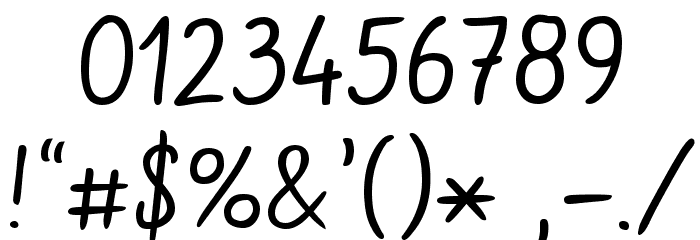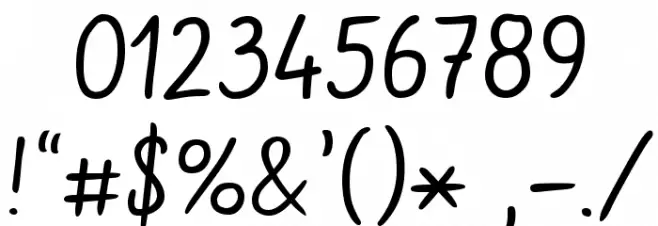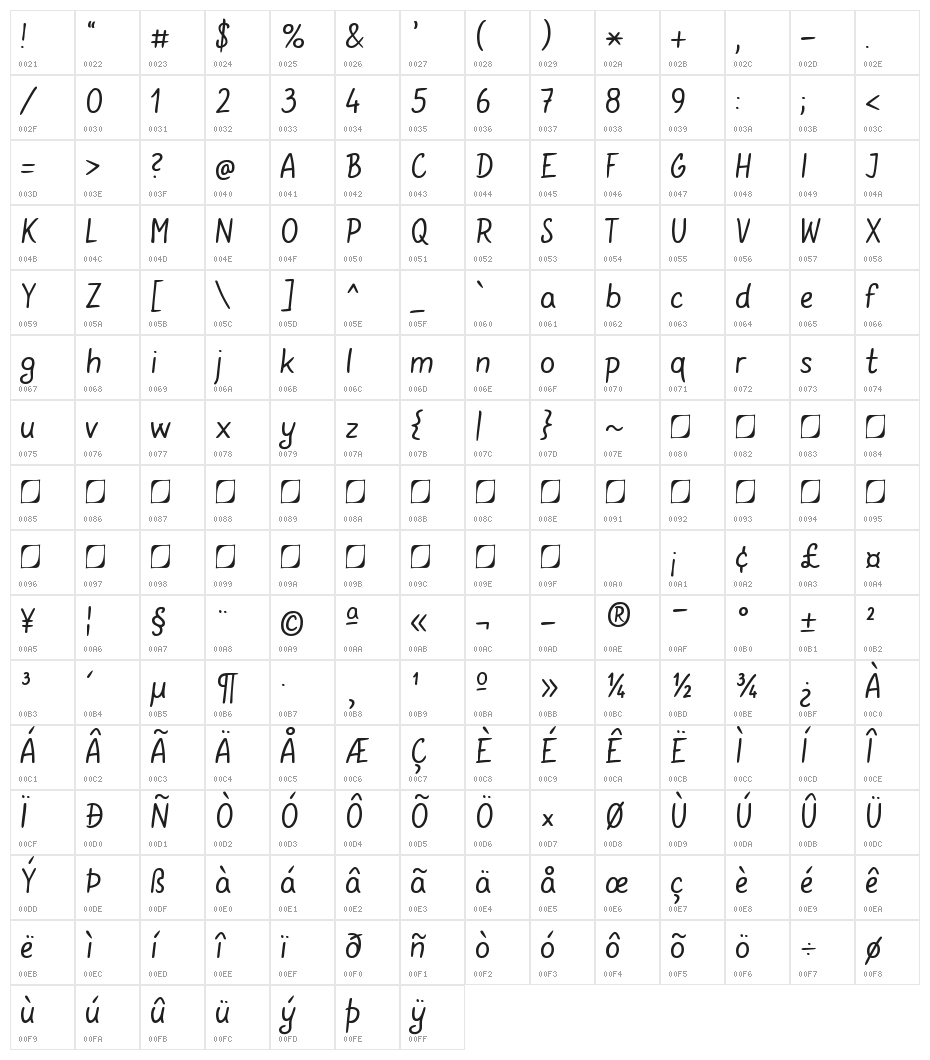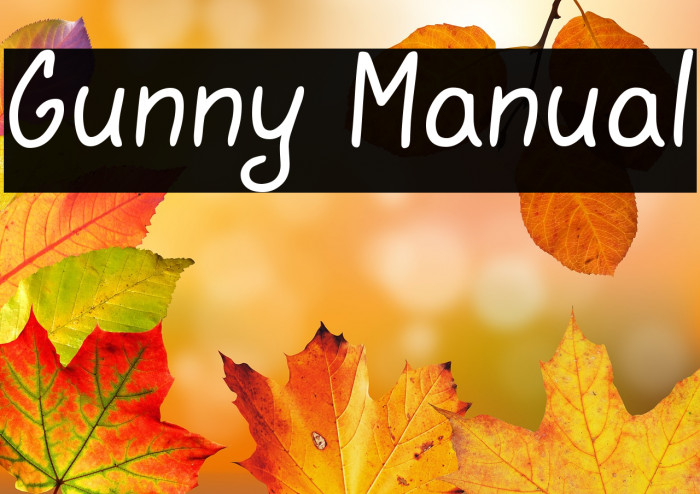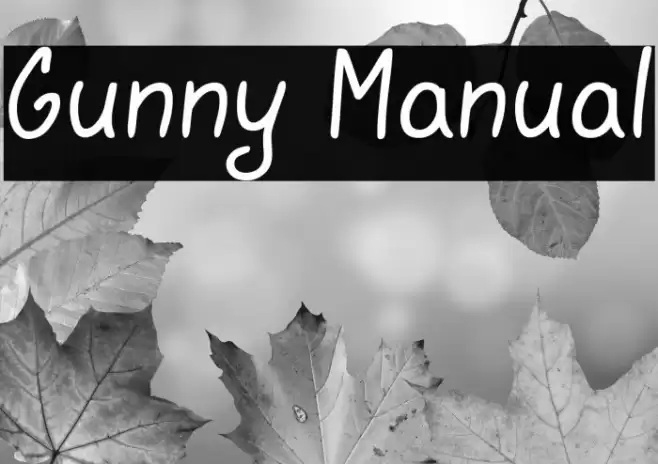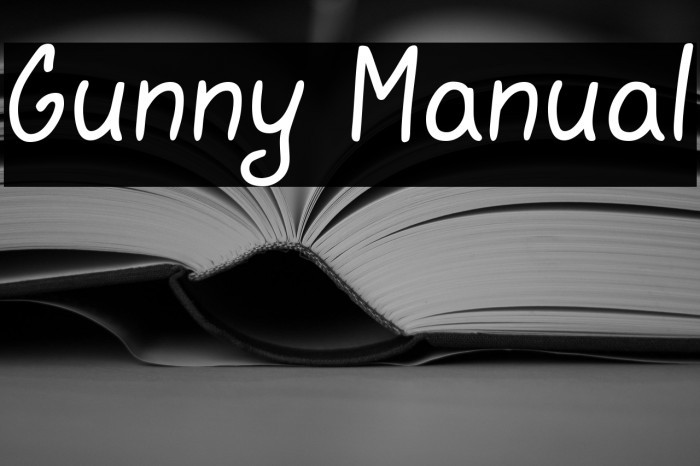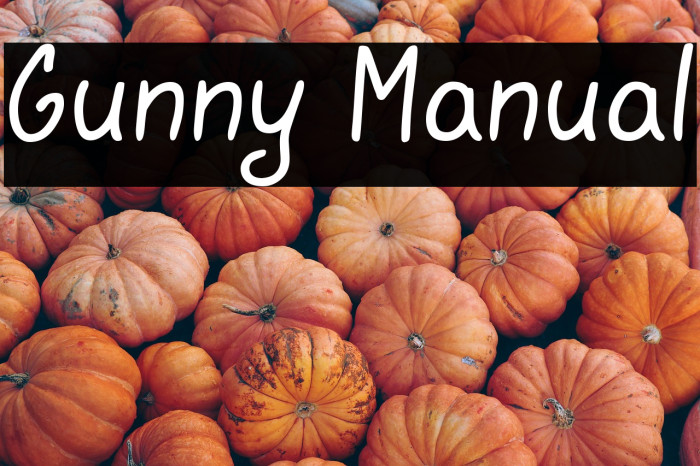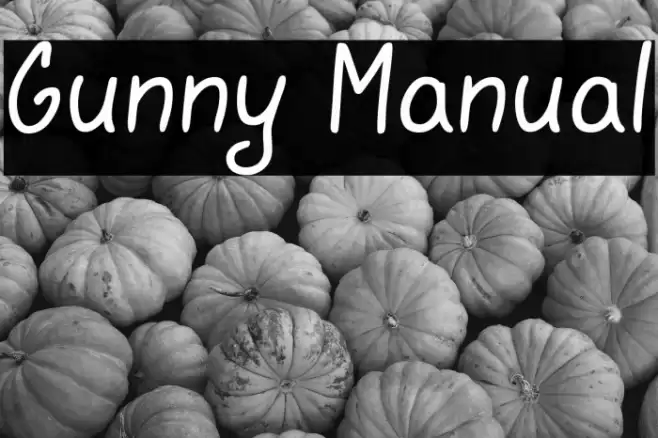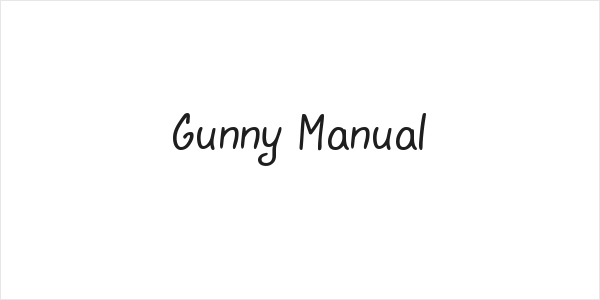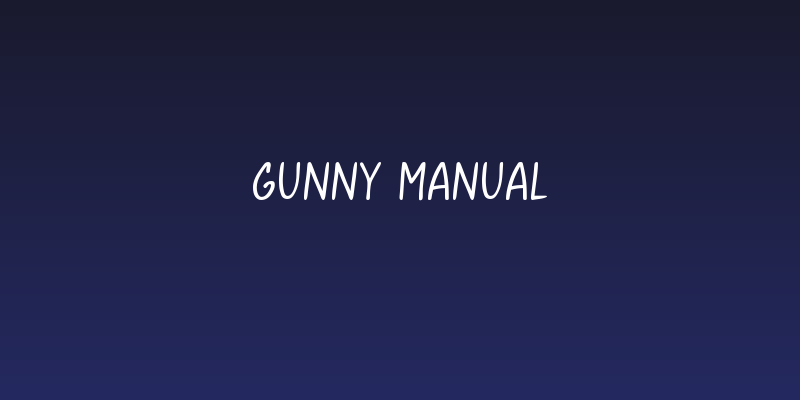
Gunny Manual Font
Gunny Manual Description
This font features a playful and casual handwritten style, characterized by its smooth curves and slightly irregular letterforms that give it a personal touch. The uppercase letters are tall and slightly narrow, while the lowercase letters maintain a consistent flow, enhancing readability. The numerals are clear and distinct, matching the overall informal aesthetic. Special characters are well-integrated, maintaining the font's cohesive look. This font's friendly and approachable appearance makes it suitable for a variety of creative projects.
Overall StyleCasual
Use CaseHeadlines, Logos, Informal Text
Proposed ProjectsIdeal for greeting cards, invitations, personal branding, and creative social media graphics.